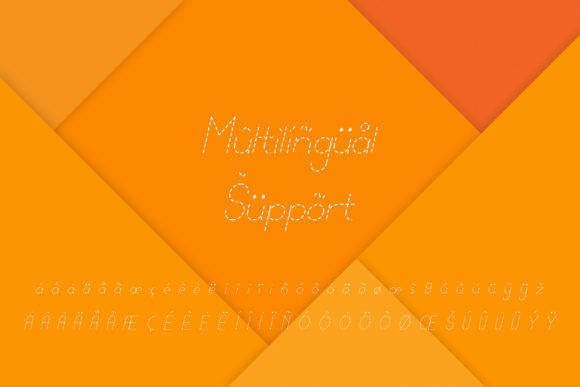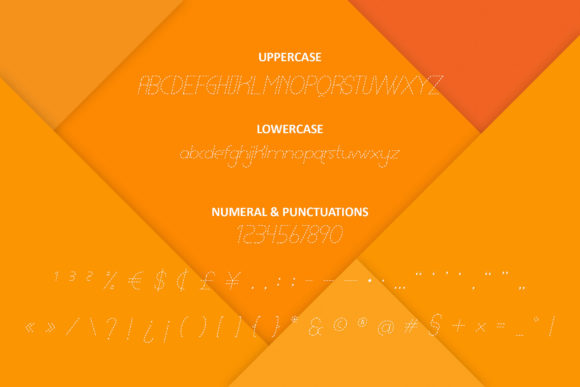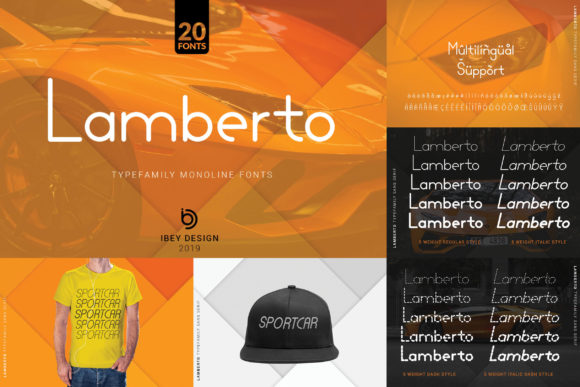
Introduction to Lamberto Thin Italic Dash Font
Have you ever found yourself staring at a blank canvas, trying to spark that next big creative project? The blank page can be intimidating, but sometimes all it takes is the right font to get those creative juices flowing. For designers, the perfect font can make all the difference between a good design and a great one.
Enter the Lamberto Thin Italic Dash Font – a monoline display font that’s about to revolutionize your design game. With its incredibly bold and contemporary approach to classic lettering, this font is a must-have for any designer looking to elevate their work. Whether you’re working on a high-profile project or just a personal passion project, Lamberto Thin Italic Dash Font is the perfect design resource to take your creative vision to the next level.
Key Features of Lamberto Thin Italic Dash Font
- High-quality design resource ideal for creative projects requiring a delicate, elegant touch
- Unique, italic design adds a touch of sophistication to any project, from invitations to branding materials
Honest Review: Lamberto Thin Italic Dash Font
I recently stumbled upon the Lamberto Thin Italic Dash Font while searching for a design resource to enhance a creative project. As a designer, I’m always on the lookout for high-quality fonts to elevate my work.
Here’s what I like about this font:
- ✨ The Lamberto Thin Italic Dash Font has a unique and elegant style that’s perfect for creative projects that require a touch of sophistication.
- ⚠️ The font’s italic style can be a bit tricky to read in certain contexts, particularly in smaller text sizes.
- ⚠️ The font family is relatively small, which may limit its versatility in certain design applications.
Overall, I’m impressed with the Lamberto Thin Italic Dash Font’s potential to elevate creative projects. While it may have some limitations, its unique style and high-quality design make it a valuable resource for designers.
To get the most out of the Lamberto Thin Italic Dash Font, use it in combination with other fonts to create a visually appealing contrast. Experiment with different font sizes and colors to find the perfect balance for your design. This font is perfect for creating a cohesive and professional look in your creative project.
The Lamberto Thin Italic Dash Font is commonly used in various design applications such as brochure design, magazine layout, and website design. Its modern and minimalist look makes it ideal for creating a clean and elegant design aesthetic.